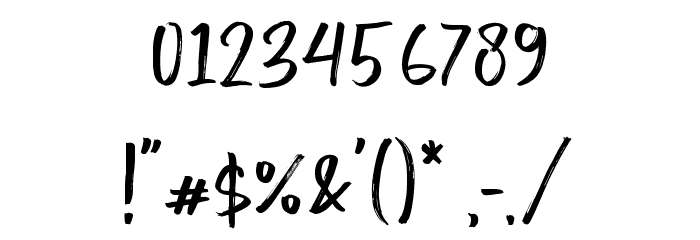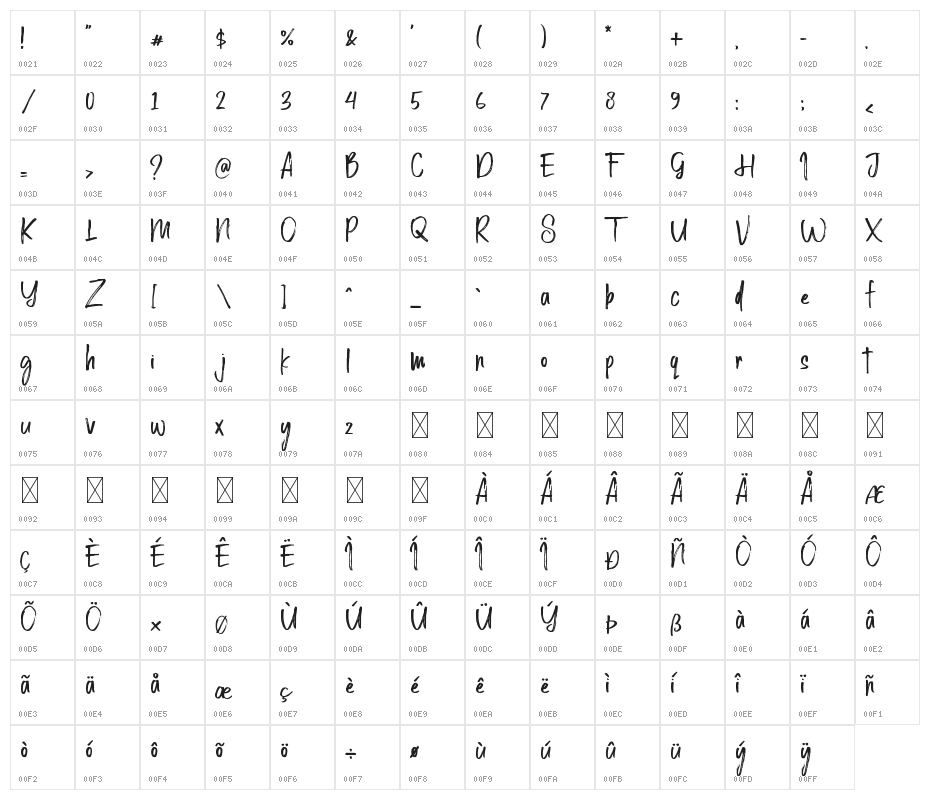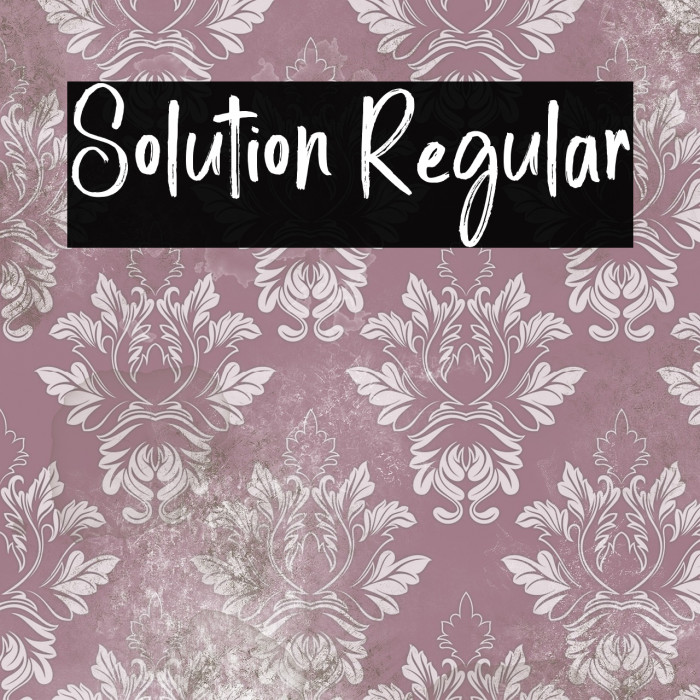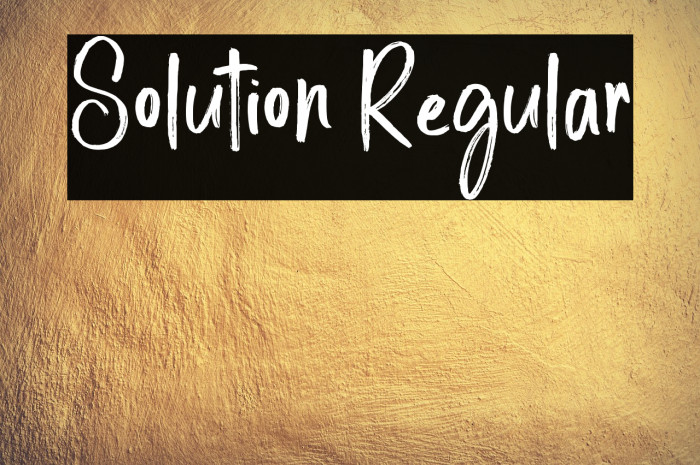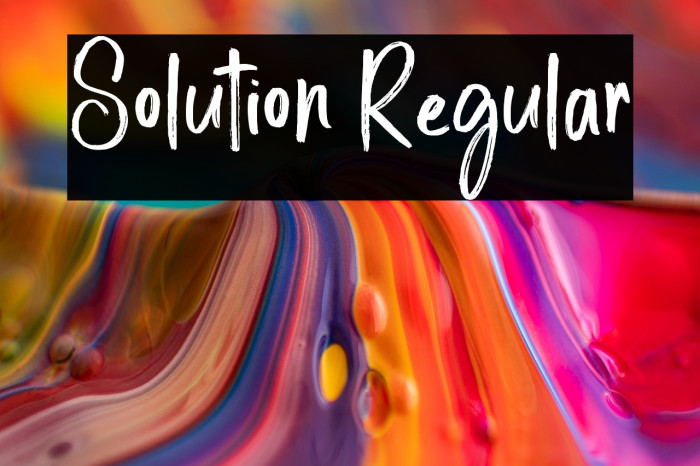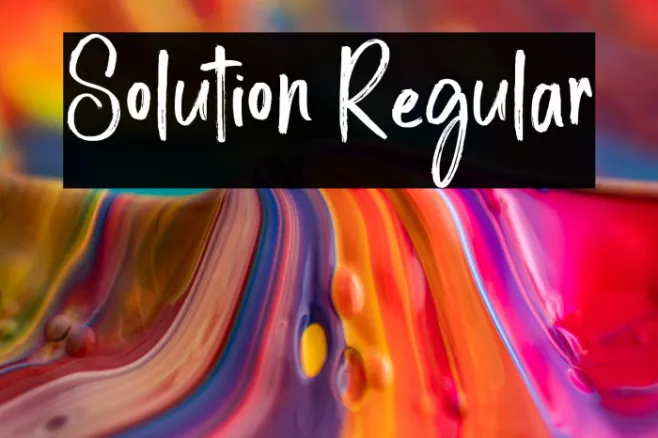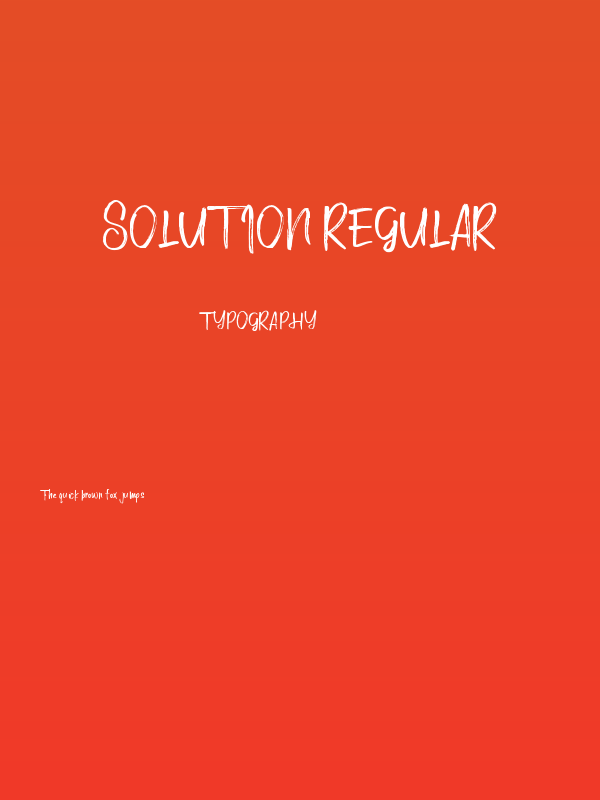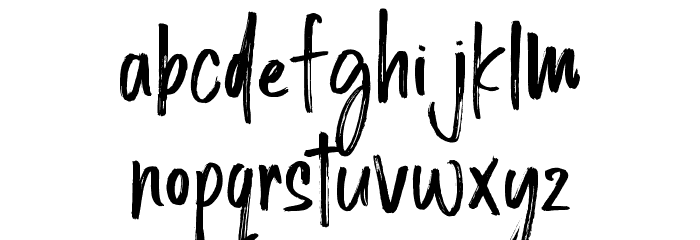
Solution Regular Font
Solution Regular Description
This font features a dynamic and expressive handwritten style, characterized by its bold and fluid strokes. The letters are slightly irregular, adding a personal and artistic touch to the text. The uppercase letters are tall and commanding, while the lowercase letters maintain a consistent flow, enhancing readability. Numbers and special characters are crafted with the same attention to detail, ensuring a cohesive look across all elements. The font's energetic appearance makes it ideal for projects that require a lively and informal vibe.